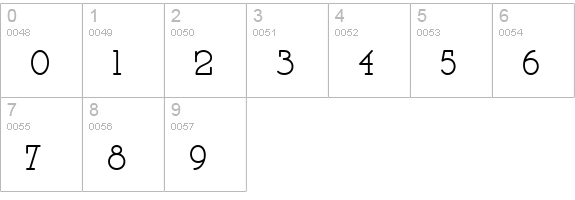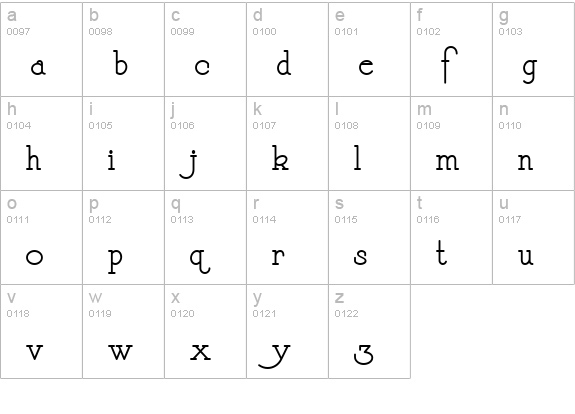
Daffadowndilly NF Font Details
Daffadowndilly NF font is a whimsical and elegant typeface that exudes a sense of charm and sophistication. With its delicate curves and graceful flourishes, this font is perfect for adding a touch of beauty to any design project. Whether you're creating wedding invitations, greeting cards, or branding materials, Daffadowndilly NF will surely make your text stand out. What makes Daffadowndilly NF even more appealing is that it is available for free download at FontsMarket.com. This means that you can easily access this stunning font and use it in your projects without any cost. Don't miss the opportunity to enhance your designs with the timeless beauty of Daffadowndilly NF font.